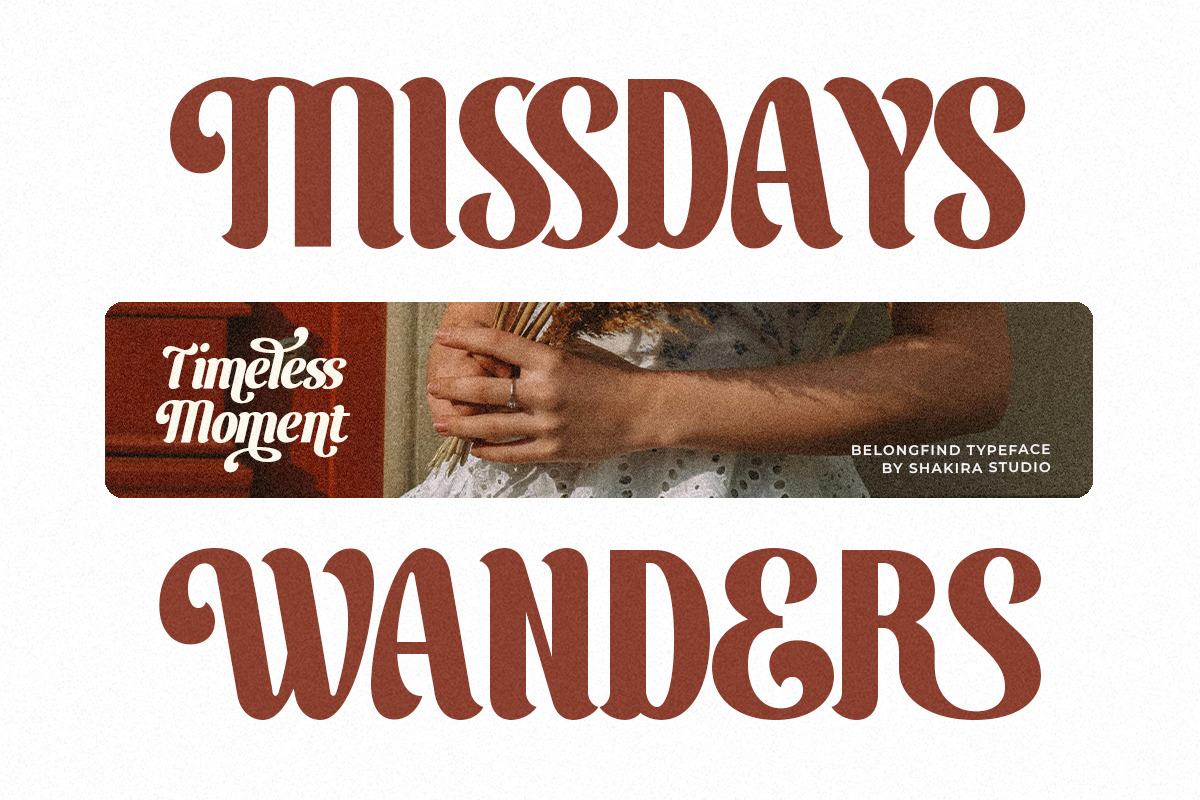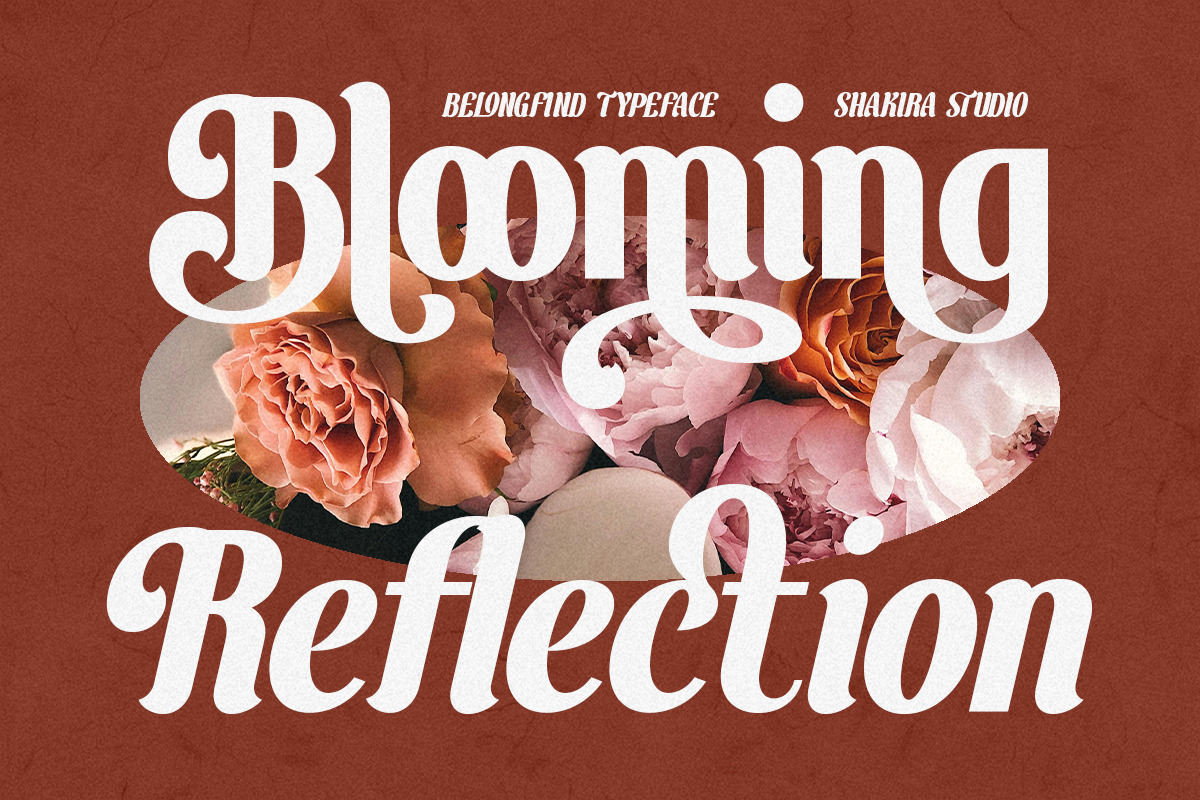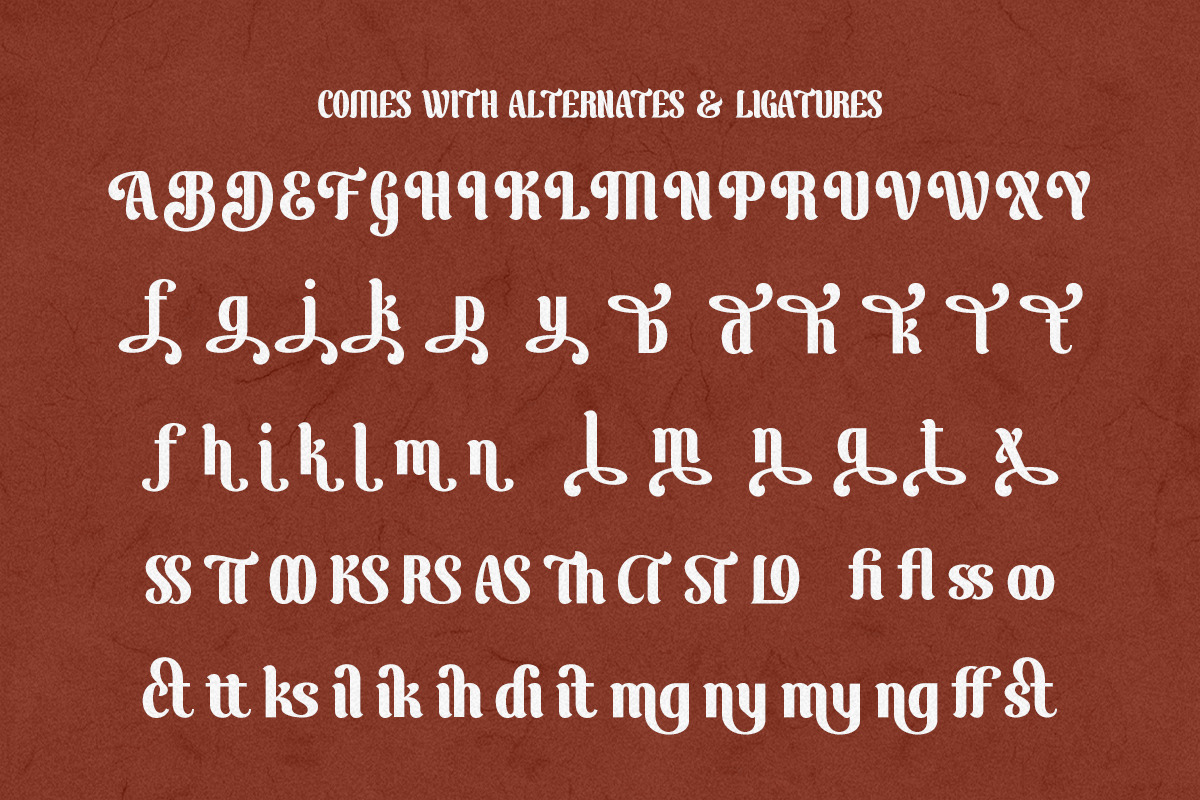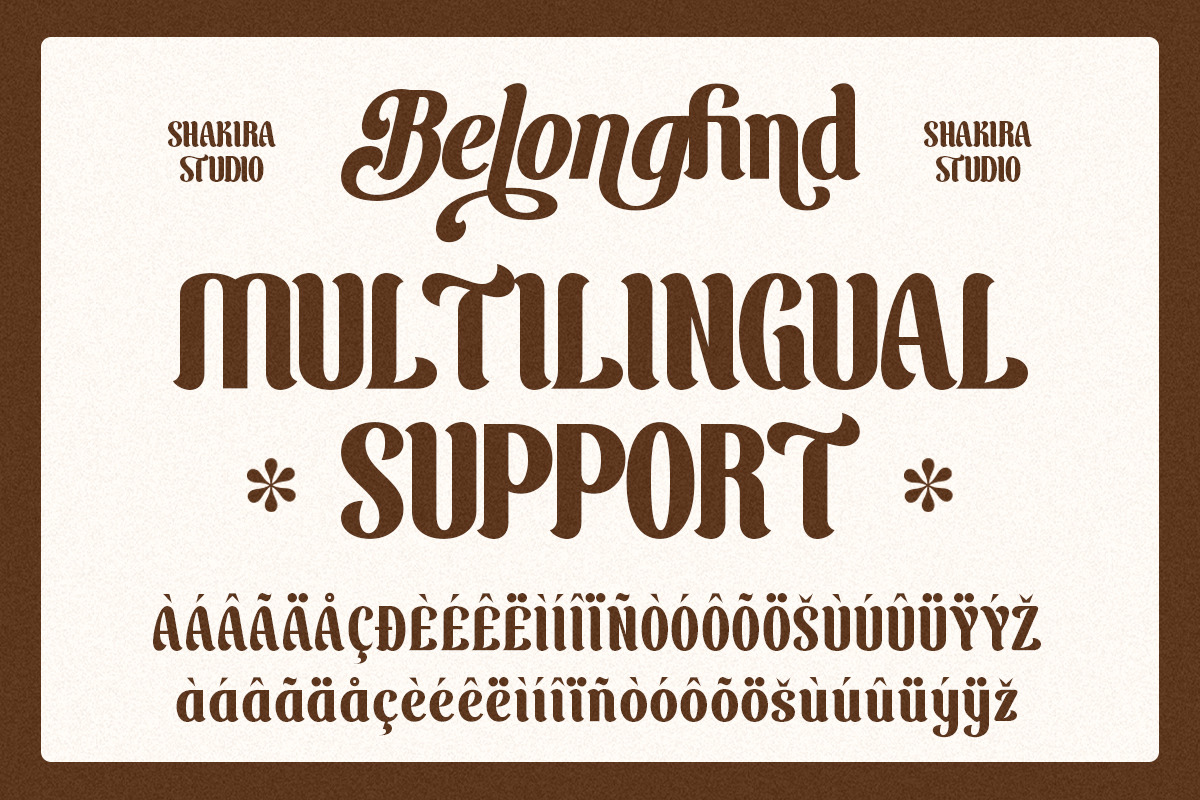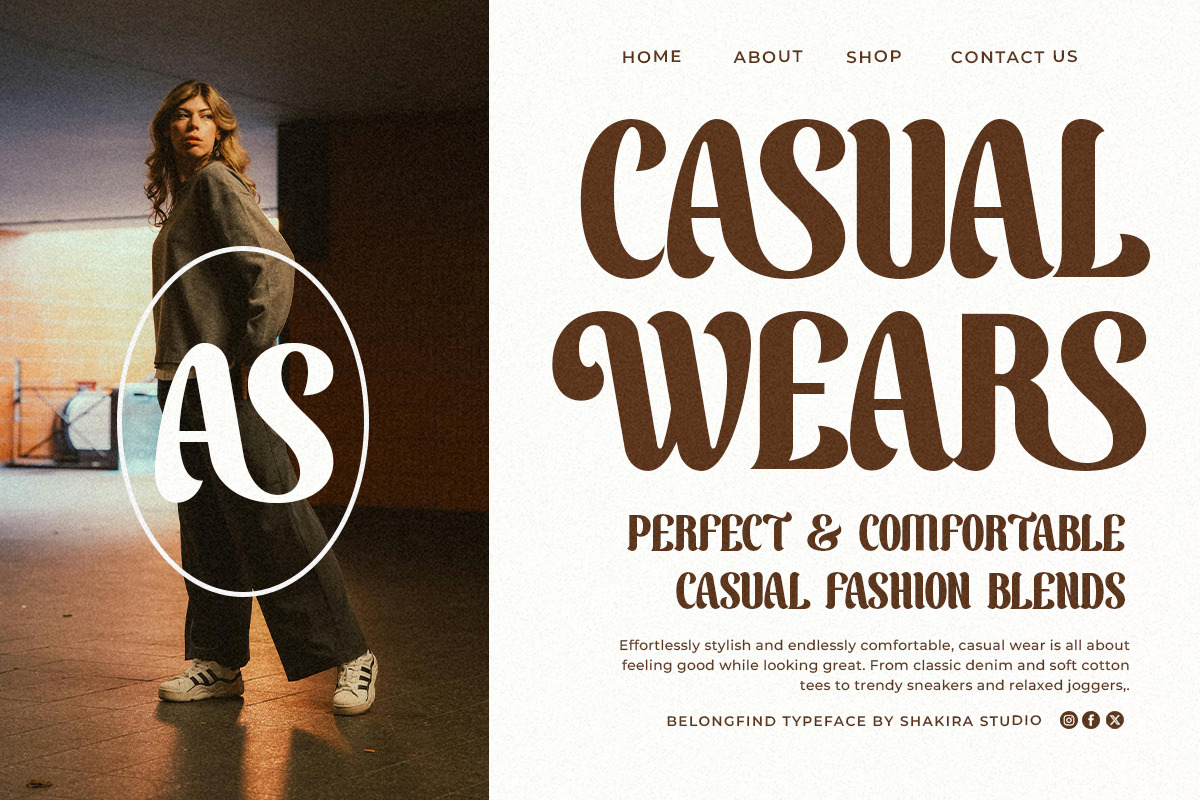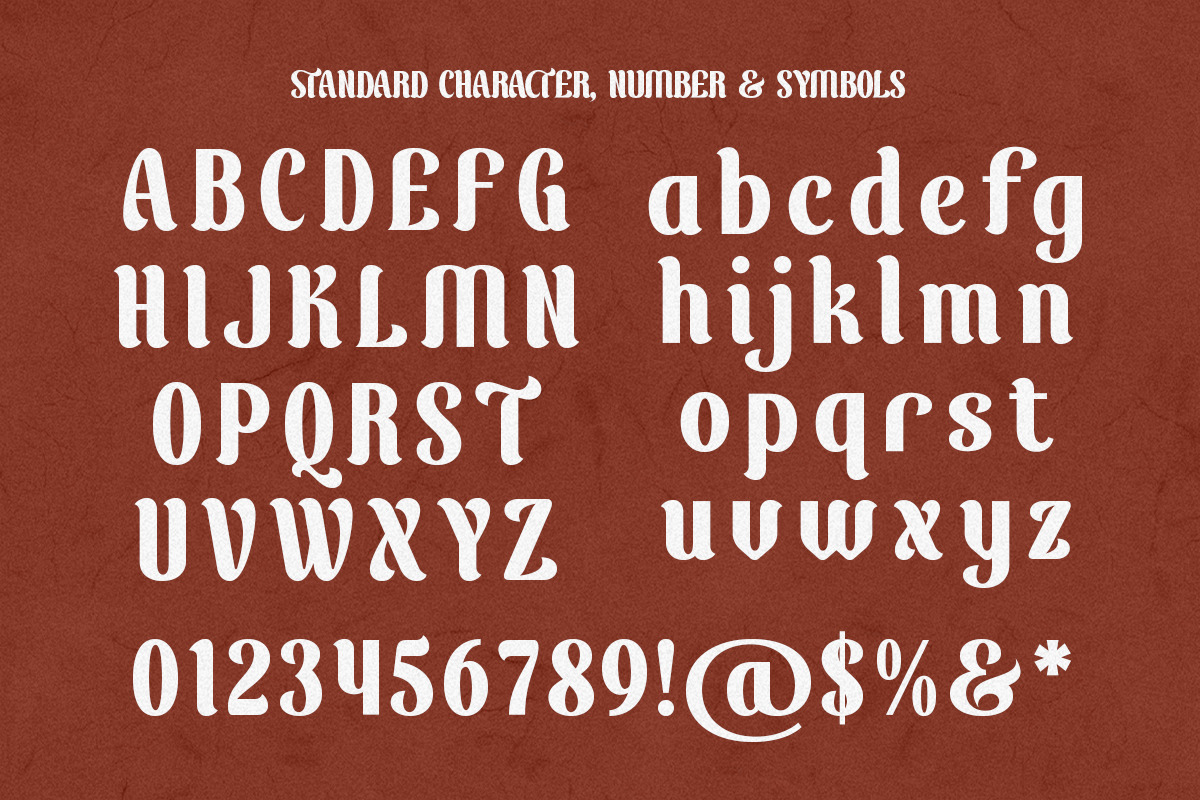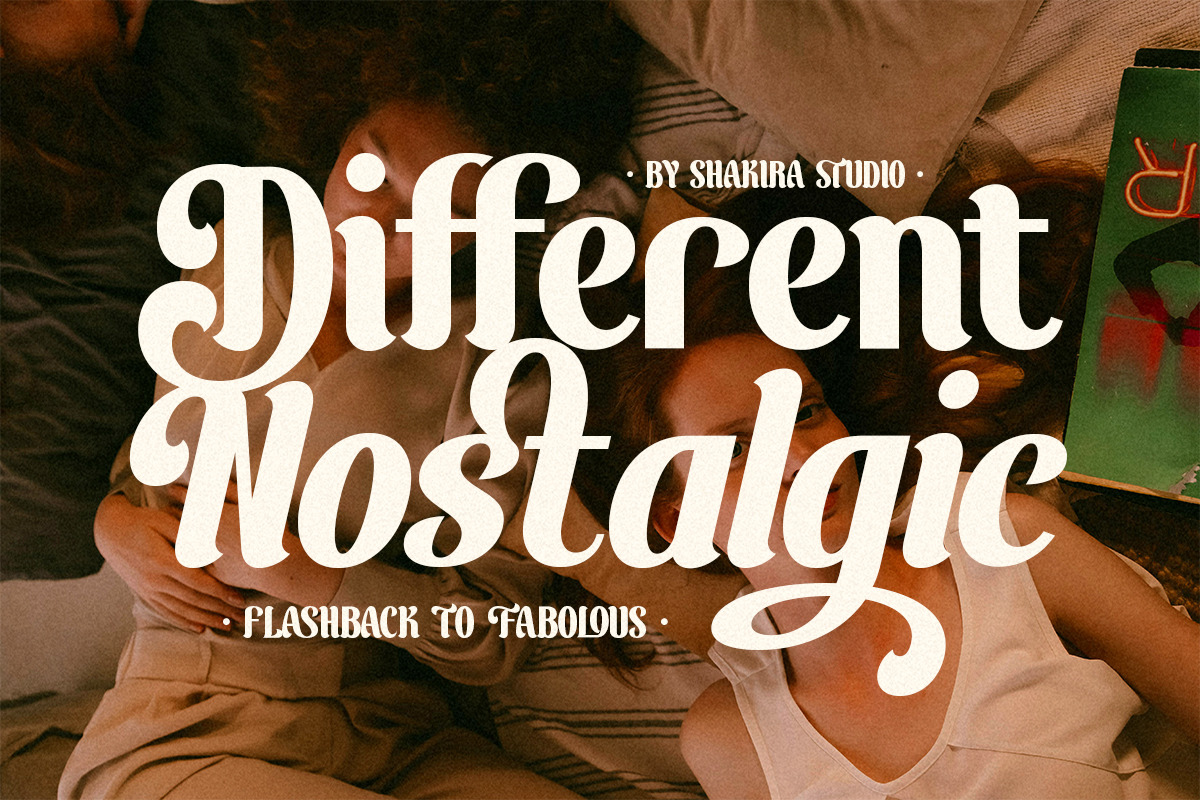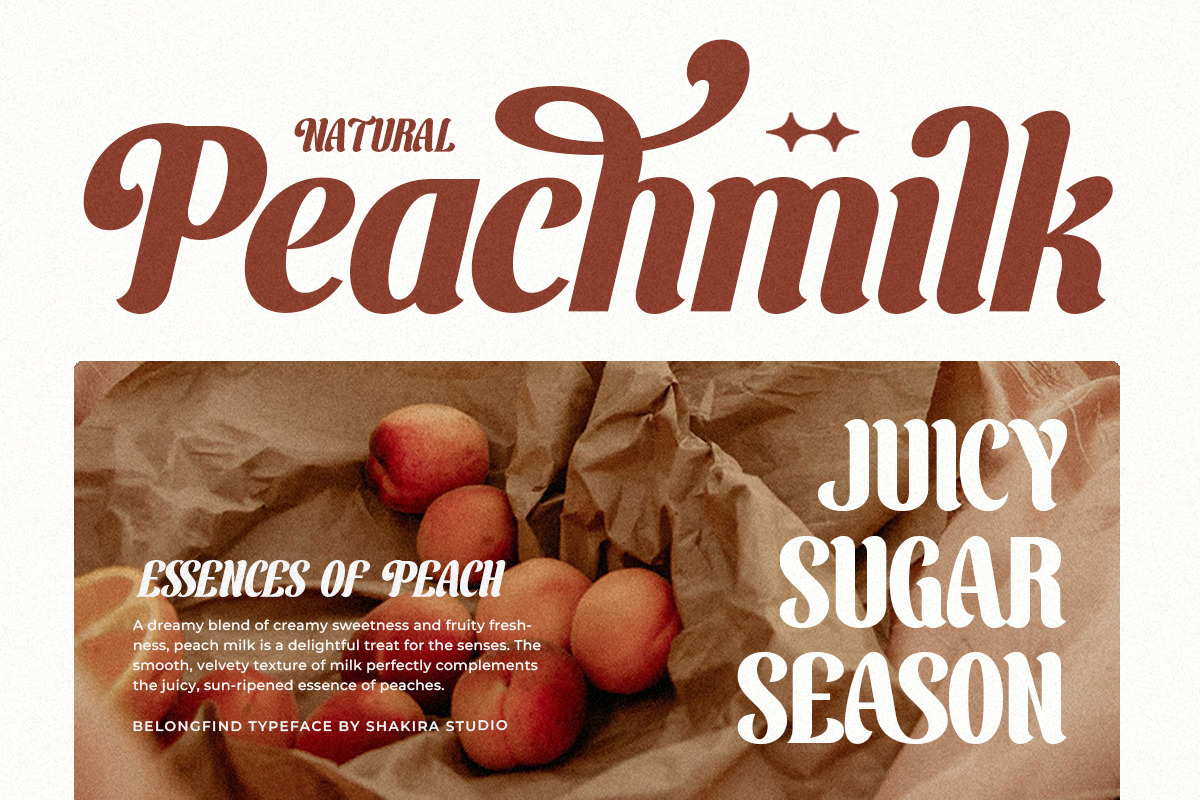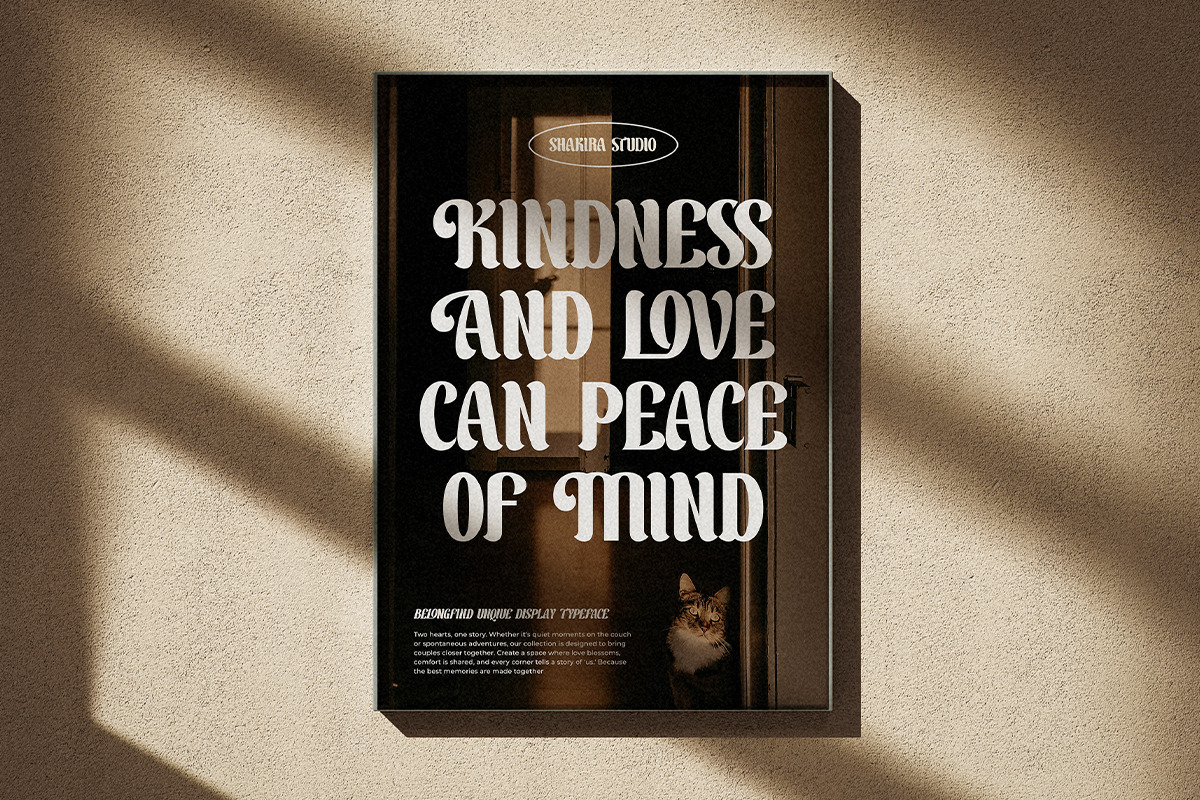
BelongFind - Display Serif
Belong Find - Unique Display Serif Font for Bold & Elegant Designs
Belong Find is a bold and unique display serif font designed to bring character and elegance to your projects. Featuring alternates and ligatures, this typeface offers flexibility for creating distinctive typography styles. Ideal for branding, logos, posters, magazines, packaging, and print designs, Belong Find ensures a timeless yet modern look. With both regular and italic versions, this font is perfect for making a statement in high-end editorial, fashion, and luxury branding. Elevate your designs with Belong Find – a display serif with personality and style!
- Regular & Italic
- Opentype features ( ligature, alternate )